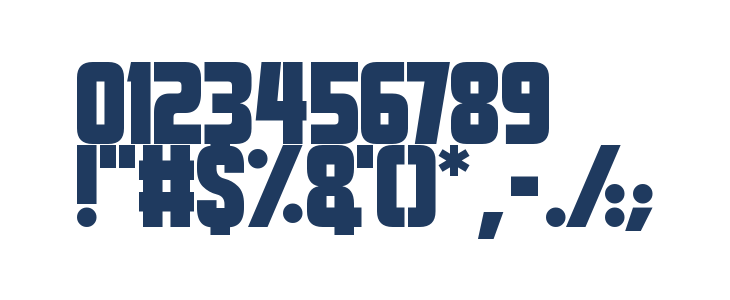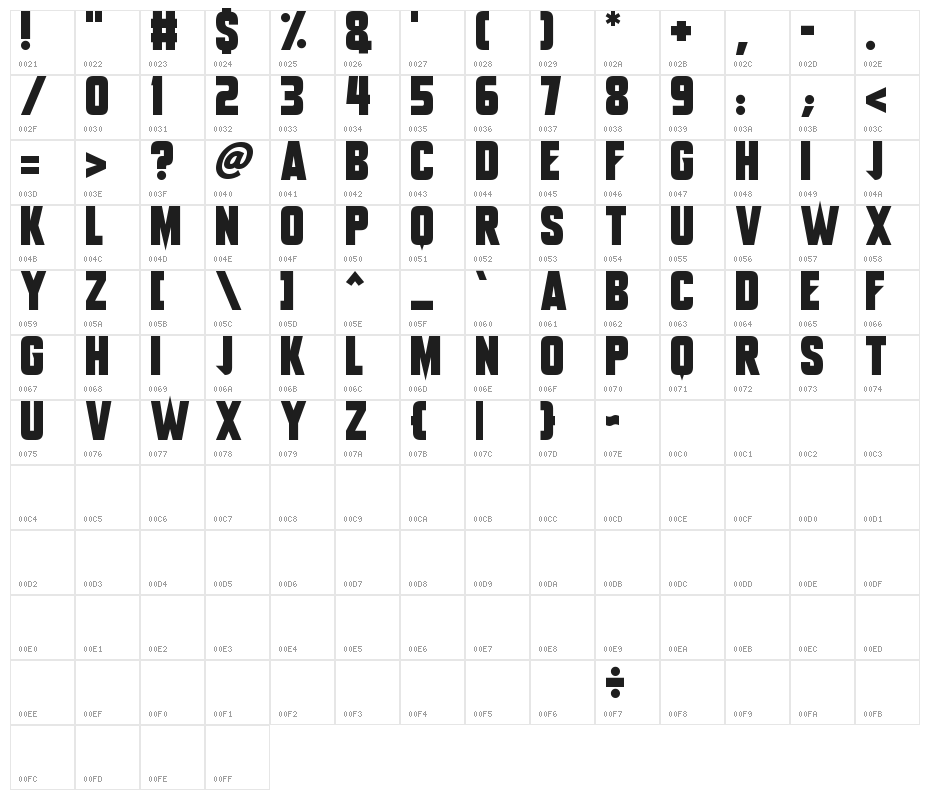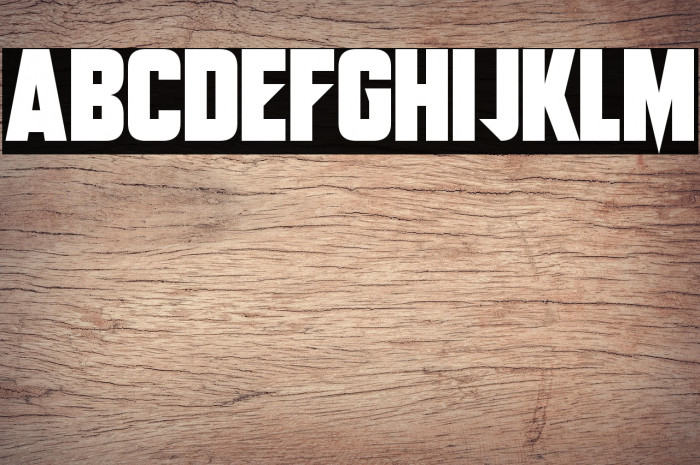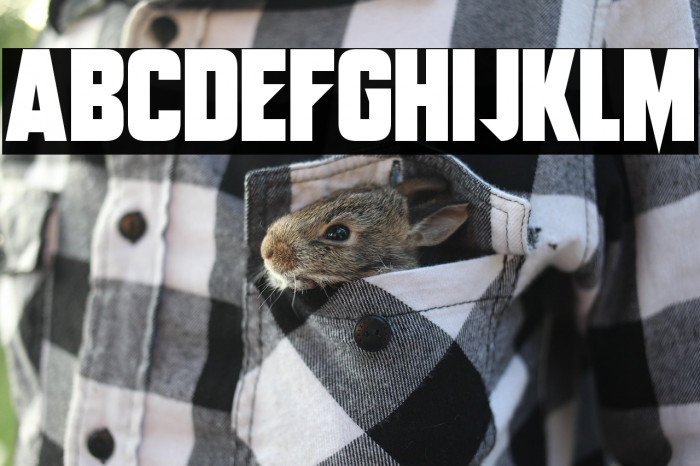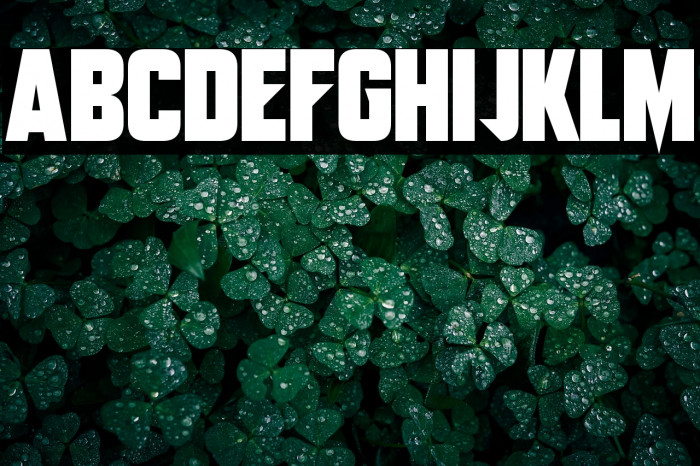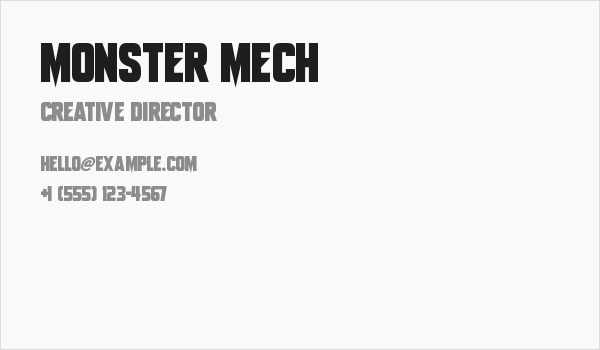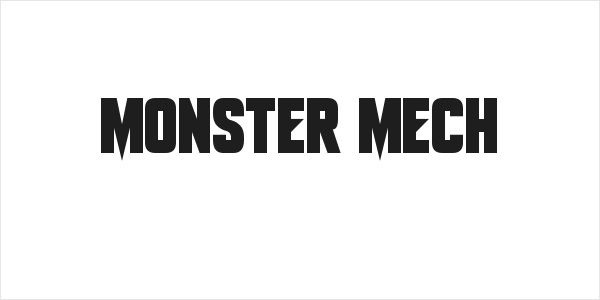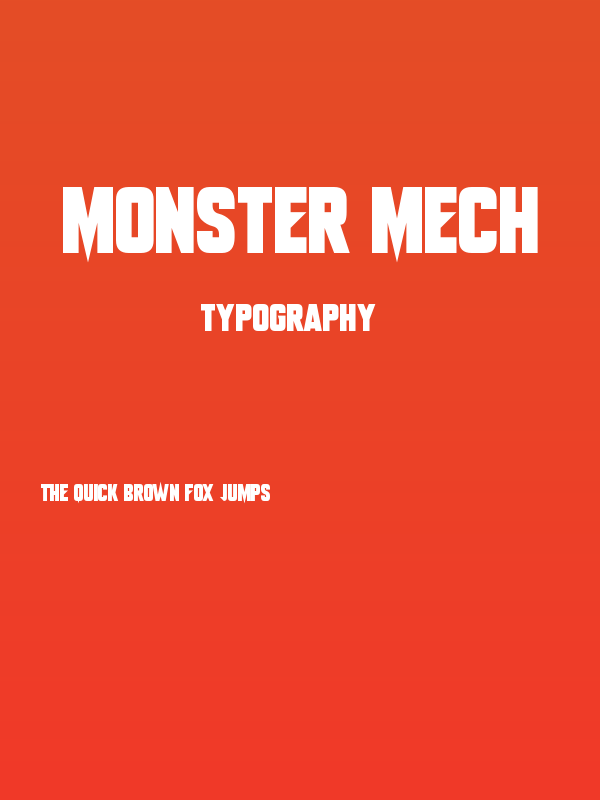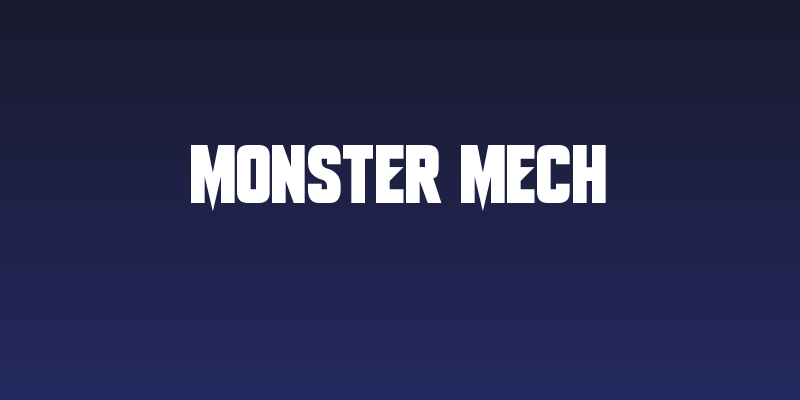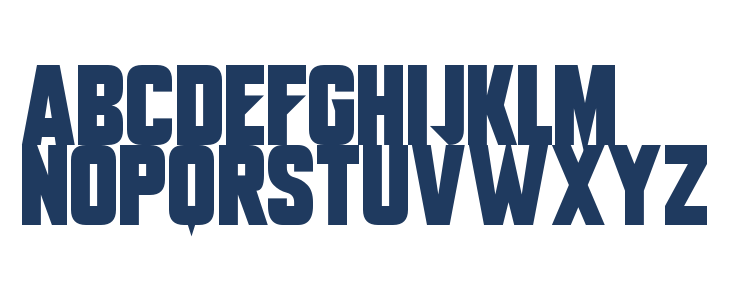
Monster Mech Font
Monster Mech Description
This font features a bold, impactful design with a strong geometric structure. The characters are blocky and robust, with sharp angles and a uniform thickness that conveys a sense of strength and modernity. The uppercase letters are particularly striking, with a consistent height and width that create a cohesive look. The numbers and special characters maintain the same bold style, ensuring readability and visual impact. This font is ideal for projects that require a commanding presence and a contemporary aesthetic.